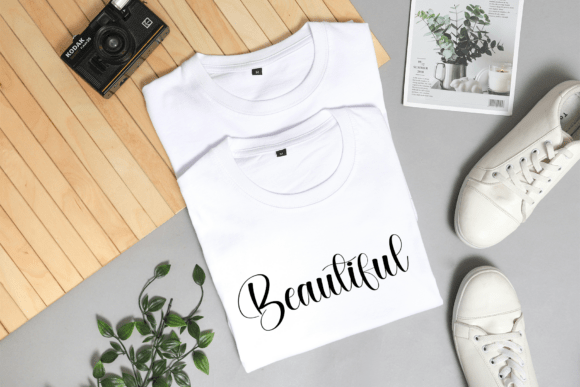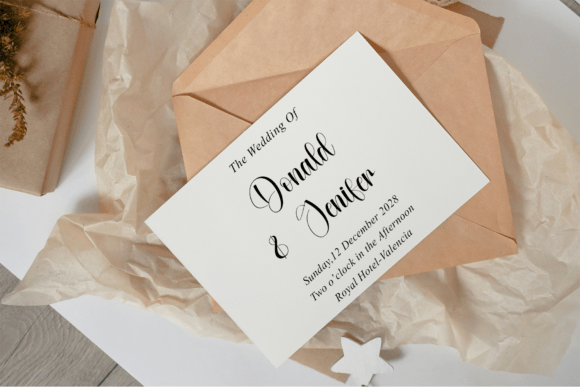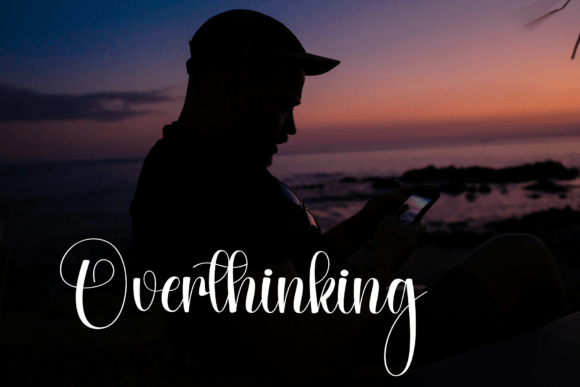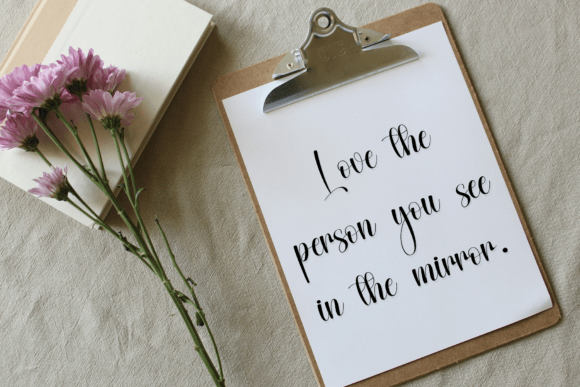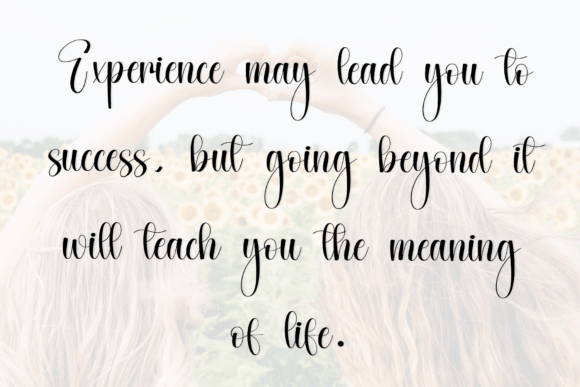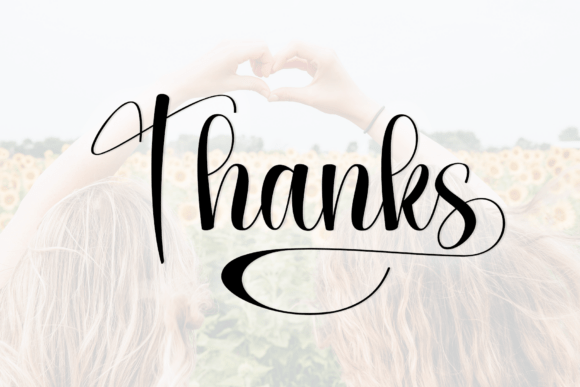
Introducing Bestfriends Font: Elevate Your Designs with Elegance and Sophistication
In the world of typography, a well-crafted font can make all the difference in elevating a design from ordinary to extraordinary. For those seeking a touch of elegance and sophistication, Bestfriends Font is an exceptional choice. This beautifully designed script font is perfect for creative projects that demand a high level of refinement and visual appeal.
The Characteristics of Bestfriends Font
Bestfriends Font is a sophisticated and fluid script font that boasts a range of distinctive features. Its vertically elongated letterforms, rendered with a fine, monolinear stroke weight and smooth character joins, give it a unique and refined appearance. The design is characterized by tall, sweeping ascenders and rhythmic visual flourishes that mimic elegant ink work on paper, providing a sense of customized artistry and professional visual flow.
What Makes Bestfriends Font Stand Out
So, what sets Bestfriends Font apart from other script fonts on the market? Here are a few key factors that make it an exceptional choice for designers and crafters:
- Elegant and Refined Appearance: Bestfriends Font features a sophisticated and fluid design that exudes elegance and refinement. Its tall, sweeping ascenders and rhythmic visual flourishes make it perfect for designs that demand a high level of visual appeal.
- Hand-Penned Touch: The font’s hand-penned appearance gives it a unique and personalized feel, making it ideal for boutique brand identities, personal signature watermarks, and other applications where a touch of personality is desired.
- Versatility: Bestfriends Font is an incredibly versatile font that can be used in a wide range of creative projects, from elegant lifestyle marketing and professional social media headers to packaging and branding.
- Professional Visual Flow: The font’s smooth character joins and fine, monolinear stroke weight ensure a professional visual flow that is both easy to read and visually appealing.
Bestfriends Font is an exceptional choice for designers and crafters seeking to add a touch of elegance and sophistication to their creative projects. Whether you’re working on a boutique brand identity, a personal signature watermark, or an elegant lifestyle marketing campaign, this font is sure to impress.
Examples of Bestfriends Font in Action
So, how can you use Bestfriends Font in your designs? Here are a few examples to get you started:
- Boutique Brand Identities: Use Bestfriends Font to create a sophisticated and refined brand identity that stands out from the crowd.
- Personal Signature Watermarks: Add a touch of elegance and personality to your personal signature watermarks with Bestfriends Font.
- Elegant Lifestyle Marketing: Use Bestfriends Font to create elegant and refined marketing materials that showcase your brand’s sophisticated side.
- Professional Social Media Headers: Elevate your social media presence with Bestfriends Font, perfect for professional headers and graphics.
In conclusion, Bestfriends Font is an exceptional choice for designers and crafters seeking to add a touch of elegance and sophistication to their creative projects. With its refined appearance, hand-penned touch, and versatility, this font is sure to impress. Whether you’re working on a boutique brand identity, a personal signature watermark, or an elegant lifestyle marketing campaign, Bestfriends Font is the perfect choice.